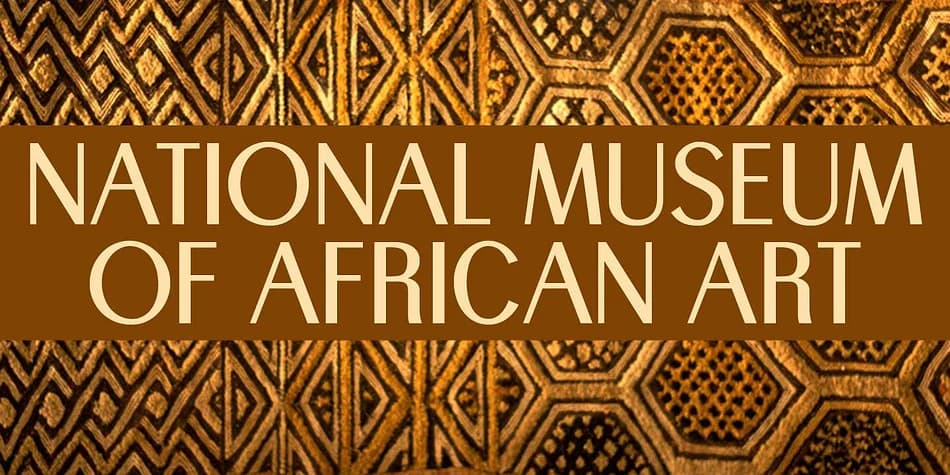
You're designing the packaging for a boutique skincare line targeting luxury markets, and you need something with geometric sophistication and genuine retro polish that stands out. TRIO CT by CastleType hits that mark perfectly. Commissioned by Publish magazine in 1991, this decorative face draws from authentic art deco revival sensibilities without veering into kitsch.
What makes TRIO CT special is its dual-alphabet design in uppercase characters. You get two distinct letterform interpretations per weight: one pure art deco geometry with sharp angles and stylized forms, the other a more contemporary take on the same era. This flexibility lets you layer styles, alternate between them for visual interest, or simply choose whichever suits your layout best. It's particularly effective for luxury goods labels, sophisticated vintage-inspired event invitations, speakeasy-style posters, and boutique branding projects where geometric character matters.
With three weights spanning Light, Medium, and Bold, you can easily scale from delicate label work to commanding display applications. The uppercase-only character set actually reinforces the authentic, distinctly art deco personality, since the style thrives beautifully when set in all caps. Pick up TRIO CT on Creative Fabrica and bring this distinctive geometric voice to your next premium design project.
TRIO CT Font is a decorative font that shines as a display or heading face. Pair it with a clean sans-serif or serif font for body text β the contrast creates a clear hierarchy while the two styles stay balanced and easy to read.